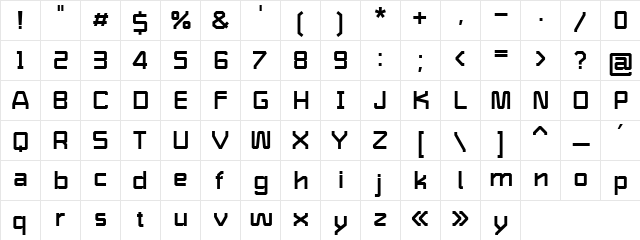
Shaffron Regular
Design Context for Shaffron Typeface
Shaffron offers clean, dependable letterforms without strong stylistic allegiance, making it a practical choice for designers who need flexibility.
Pro Tip: Pair Shaffron with a font of contrasting weight or personality to build a more expressive typographic hierarchy.